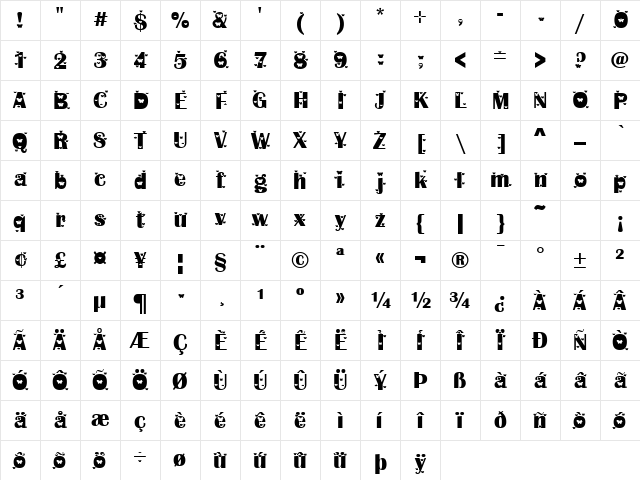
Butterfly Flutter Regular
Design Context for Butterfly Flutter
Butterfly Flutter is a composed and adaptable typeface that performs quietly and consistently across a wide range of design contexts.